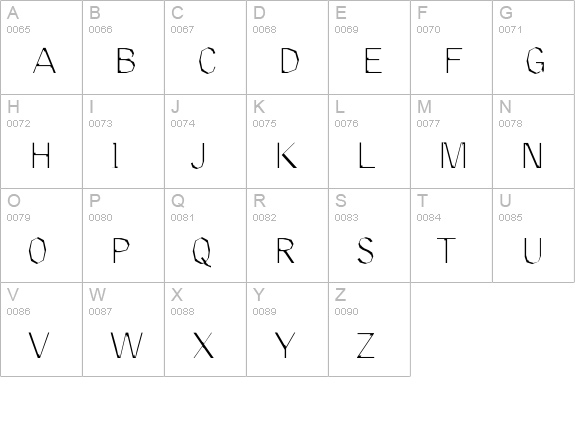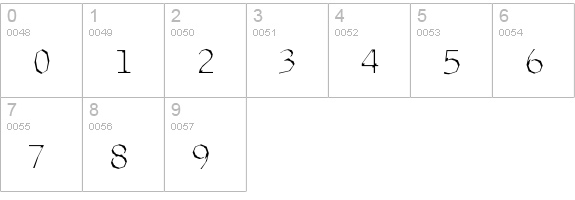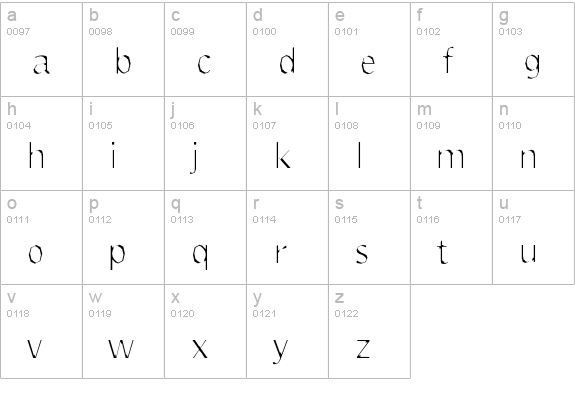
Delinquent Extract Font Details
Delinquent Extract font is a bold and edgy typeface that perfectly captures the rebellious spirit of the modern age. Its sharp angles and rugged appearance make it ideal for designs that need a touch of attitude and defiance. Whether you are working on a poster, logo, or branding project, Delinquent Extract font will definitely make a statement. The best part? Delinquent Extract font is available for free download at FontsMarket.com. This means you can easily add this unique and eye-catching font to your collection without any cost. Don't miss out on this opportunity to elevate your designs with the striking and impactful Delinquent Extract font. Download it today and unleash your creativity!